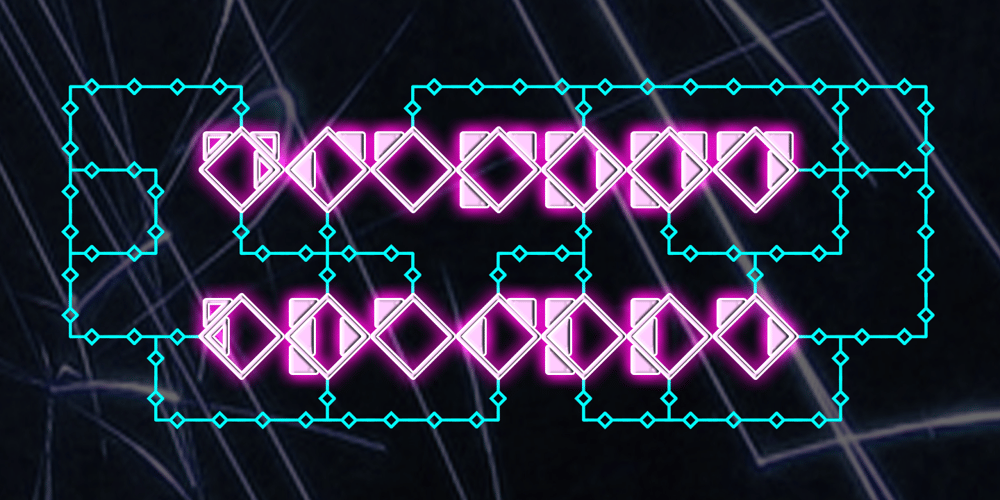
Diamond Braille
Diamond Braille font
Diamond Braille Font Family was designed by Michel Kern and published by Echopraxium. Diamond Braille contains 1 styles and family package options. Here is a “Decorative Braille font”. The initial design was indeed drawn on a K.I.S.S digital sketchpad, the Windows default drawing tool (Microsoft Paint, classic version).A. Glyph ConceptThe Braille 2×3 dot matrix is weaved around a diamond-shape. a.1. Each “dot” is represented by a “right-angle isocel triangle”.a.2. Braille dots in Diamond Braille a.2.I. “Dots” are outside the diamond for first Braille row (Braille dots 1, 4) and third Braille row (Braille dots 3, 6). a.2.II. “Dots” are inside the diamond for second Braillle row (Braille dots 2, 5). a.3. Diamond latticeGlyphs are connected horizontally (to/bottom diamond’s corners) and vertically (left/right corners) to each other (see poster 5).a.4. Special Glyphs- Space: its is either empty (“Empty cell”) or a “non Braille shape” { _, ° } depending on your display needs (as explained in b.3.II)- 6 dots: { £, =, û }- 6 empty dots: { ç, ¥ }B. Font user guideb.1. Lowercase glyphs { A..Z }In these glyphs the “dots” are represented as a white right-angle isocel triangle filled with a smaller black triangle.b.2. Uppercase glyphs { a..z }In these glyphs, the “dots” are represented as an empty triangle (this is an “empty dot”).b.3. ‘Space’ vs ‘Empty Cell’ b.3.I. ‘Space’ – ‘Space’ glyph is an empty shape – ‘¶’ glyph (at the end of each line in Microsoft Word) is also an empty shape b.3.II. ‘Empty cell’ glyphs: _ (underscore), ° (degree). In these glyphs there are 2 “empty dots” at top and bottom corners of the diamond, which differentiates them from regular Braille glyphs (which dont have a “dot in the middle”). b.4. Diamond LatticeTo display text as a ‘diamond lattice’, replace each ‘Space’ by an ‘Empty cell’ (as explained in b.3.II, see poster 5)b.5. ConnectorsThe connector glyphs allow the creation of “circuit like” designs (see poster 1). Here are the connector glyphs: { µ, à, â, ä, ã, è, é, ê, ë, î, ï }b.6. Domino featureSome Glyphs represent numbers 1..6 in a way which is similar than on dominos (see poster 6)C. PostersPoster 1: the “Font Logo”, it displays “Diamond Braille” text together with the Connectors feature.Poster 2: a pangram which is published on pangra.me ( “Adept quick jog over frozen blue whisky mix” ).Poster 3: an illustration of the Domino feature.Poster 4: a DiamondBraille version of the Periodic table.Poster 5: illustration of the Diamond lattice using only 6 dots ( û ) and 6 empty dots ( ç ) glyphs.